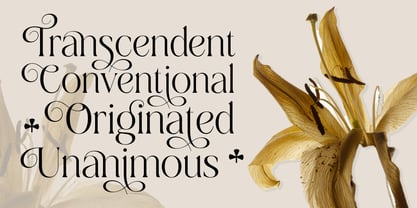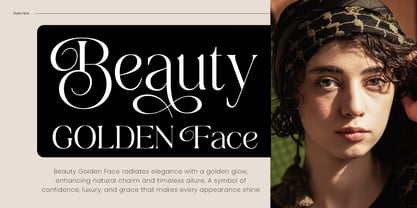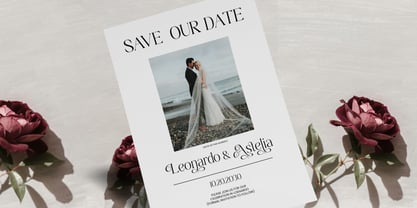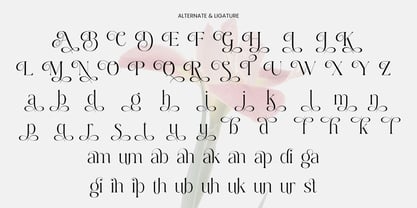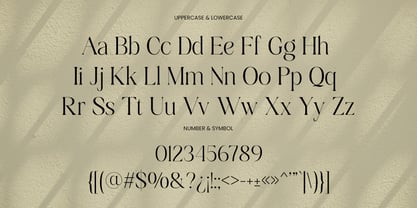
Dobagi
by Jafar07
The Dobagi Font Family was designed by Bakhrudin Ja'far and published by Jafar07. Dobagi contains 2 styles and family package options. More about this family
Dobagi is a modern serif font that combines luxury, elegance, and timeless style with refined curves and bold details. Featuring stylish alternates, smooth ligatures, and perfect kerning, it’s highly versatile and ideal for logo design, branding, packaging, invitations, editorial layouts, and wedding projects. Perfect for both digital and print, Dobagi adds sophistication and a high-end look to every design.